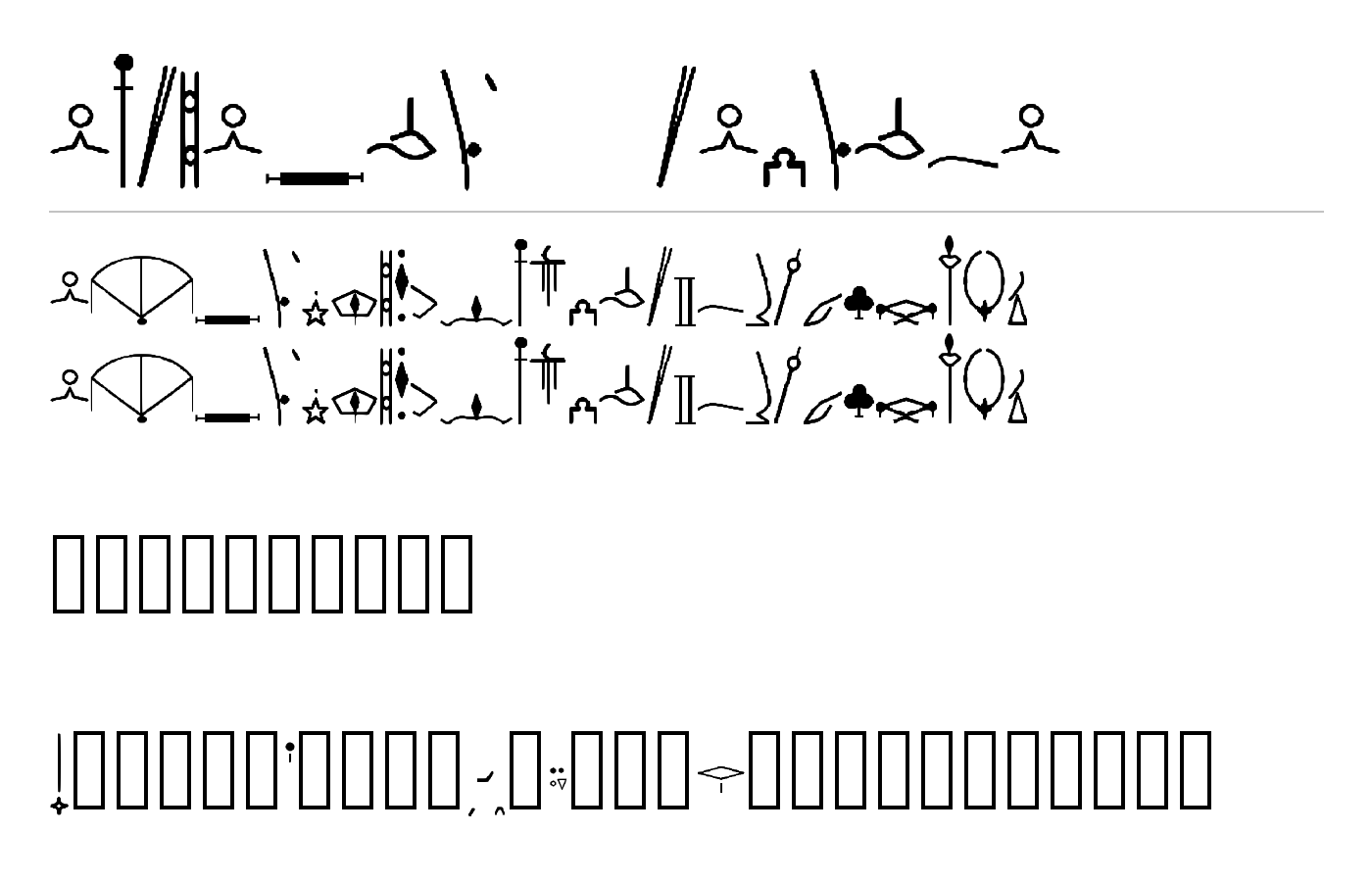
Alphacode Pandora is a highly decorative and symbolic font featuring intricate, abstract glyphs that resemble ancient, mysterious codes or pictograms rather than traditional letters. Its unique, complex design makes it perfect for creative projects requiring a mystical or enigmatic atmosphere, such as game design, speculative fiction branding, or artistic posters that want to evoke curiosity and intrigue. This font is best used sparingly for display purposes, as its characters prioritize visual storytelling over readability.
Alphacode Pandora Font